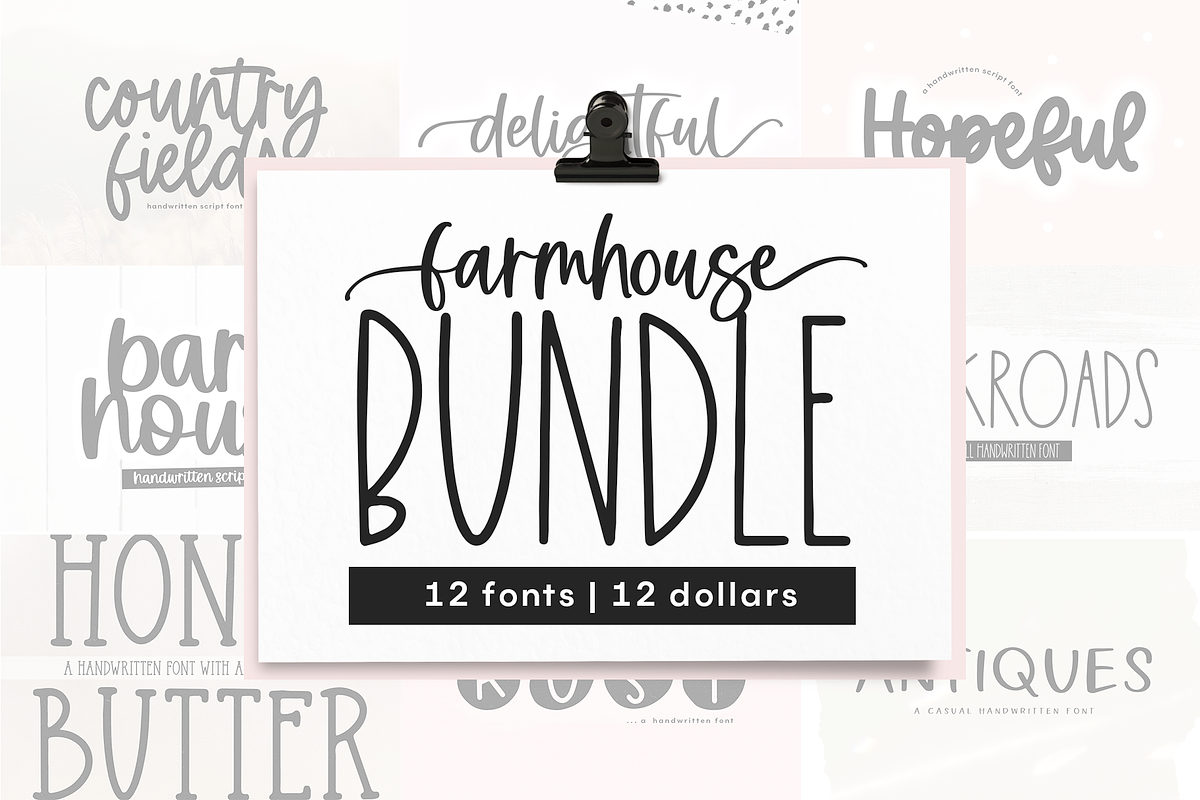
Farmhouse Font Bundle | Part Two Free Download
Farmhouse Font Bundle | Part Two Free Download is a charming and rustic collection of handcrafted fonts designed to bring warmth, simplicity, and vintage farmhouse vibes to your creative projects. Featuring a mix of script, serif, sans-serif, and decorative styles, this bundle is perfect for farmhouse signs, DIY crafts, home decor, quote designs, branding, and more.
Each font in the bundle offers a unique touch—from cozy handwritten scripts to classic rustic lettering—giving you the flexibility to mix and match for endless creative possibilities. Whether you're designing for print or digital, these fonts will add a wholesome, handcrafted feel to your work.